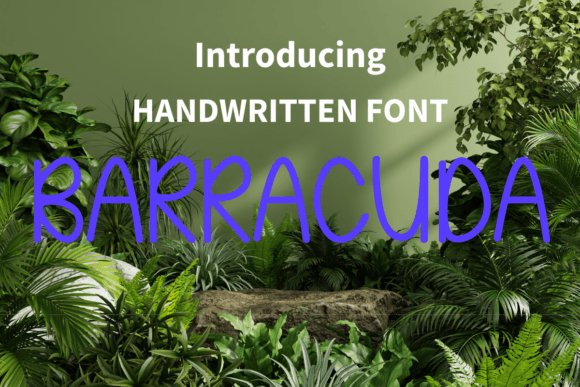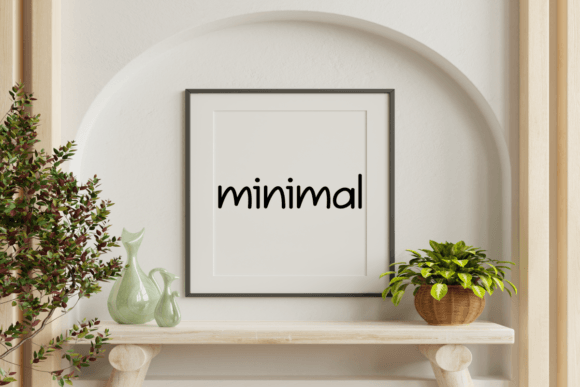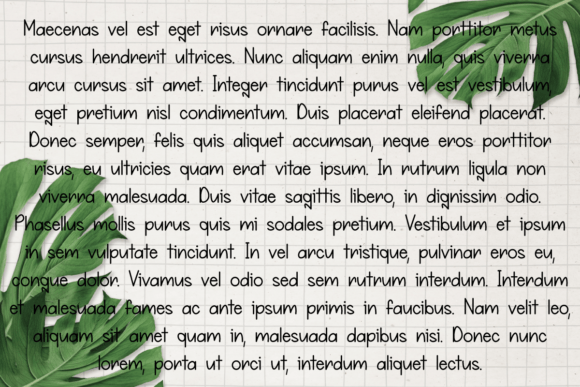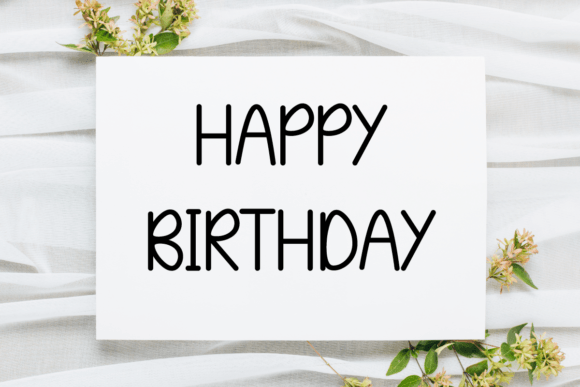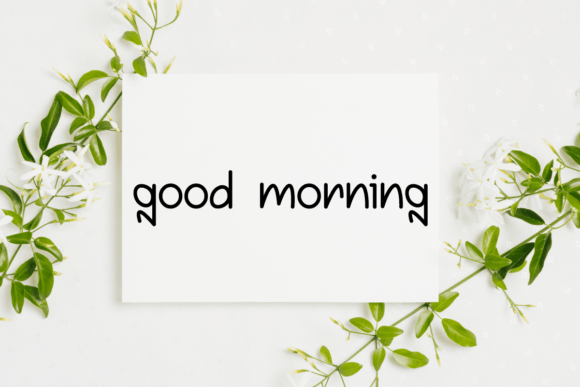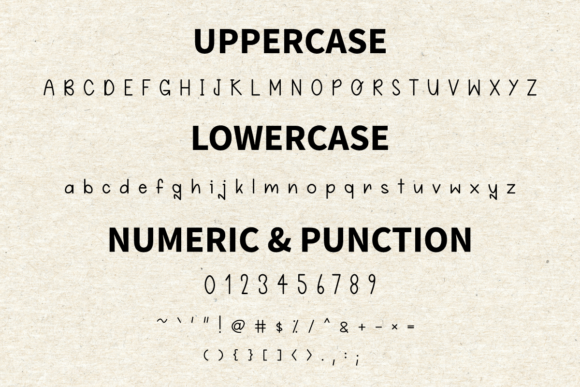
Barracuda Font
About Barracuda Font
**Barracuda: A Fun and Friendly Handwritten Font**
Introducing **Barracuda**, a font that brings a sense of fun and friendliness to your creative projects. With its whimsical and slightly quirky style, this font is designed to add a touch of brightness and charm to your designs. Feel confident in adding it to your projects, and you’ll love the delightful results it brings.
**Barracuda** stands out with its playful and handwritten letterforms, exuding an air of spontaneity and creativity. Its whimsical strokes and quirky character create an immediate connection with your audience, making it a wonderful choice for projects that require a lighthearted and inviting tone.
This font’s versatility shines through, making it suitable for a wide variety of applications. Whether you’re working on greeting cards, posters, social media graphics, branding, or any other creative endeavor, **Barracuda** adds a unique and friendly flair to your work.
For greeting cards and posters, **Barracuda** brings a cheerful and approachable touch, making your designs more relatable and engaging.
In branding and social media graphics, this font ensures your content has a playful and inviting appearance, helping you connect effectively with your audience.
In conclusion, **Barracuda** is more than just a font; it’s a design asset that brings a sense of fun and friendliness to your creative projects. Whether you’re designing for print or digital platforms, choose **Barracuda** to infuse your work with its whimsical and quirky charm. Embrace its playful appeal, and let your creativity shine with a touch of brightness and delight.